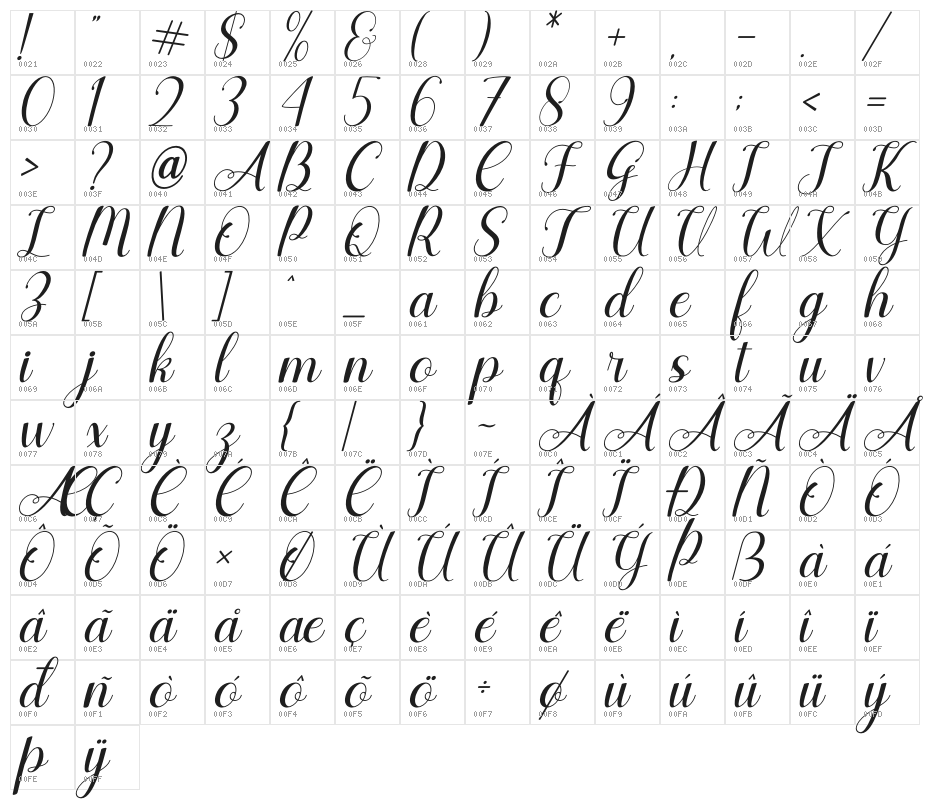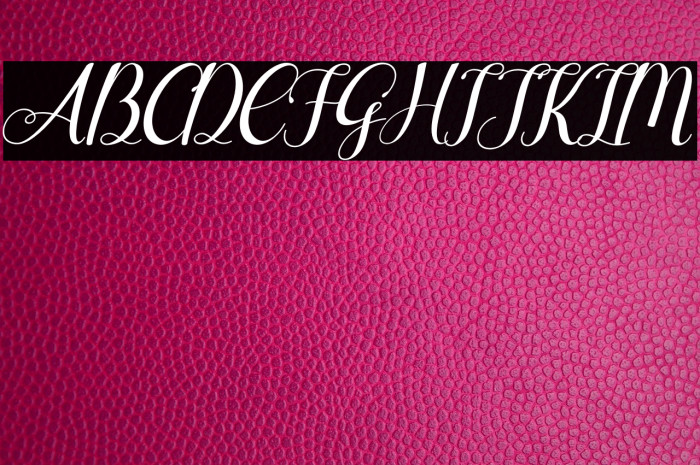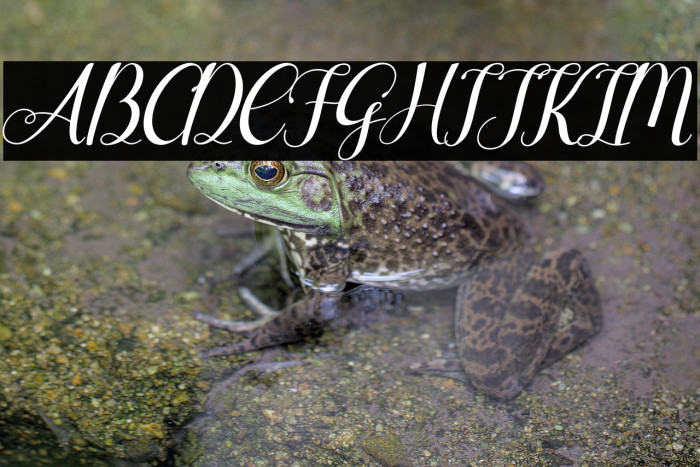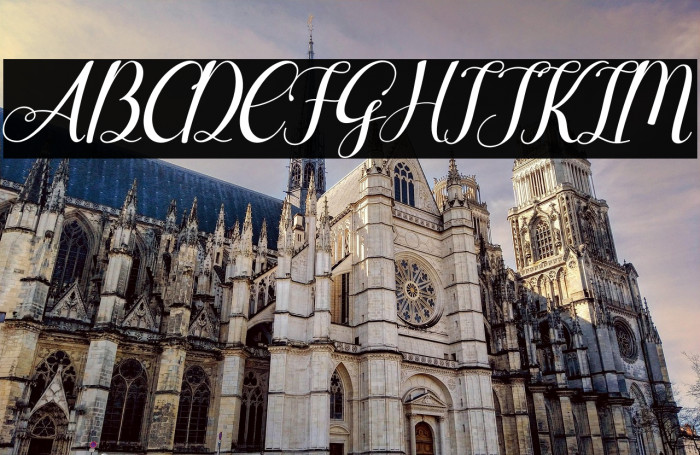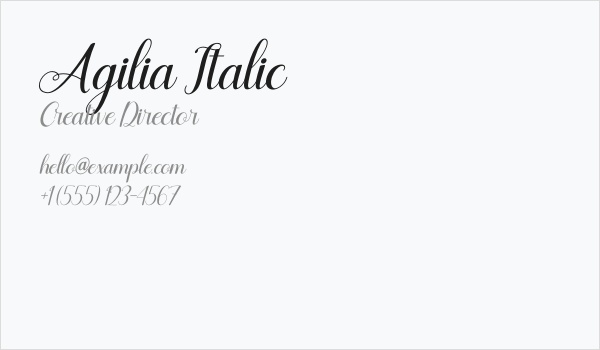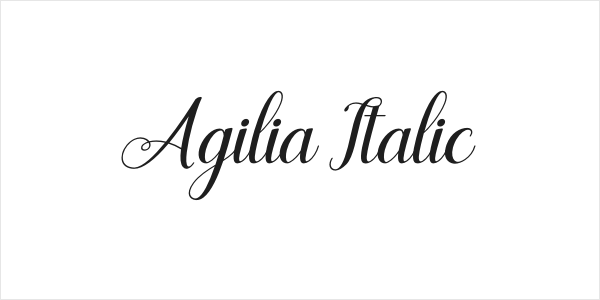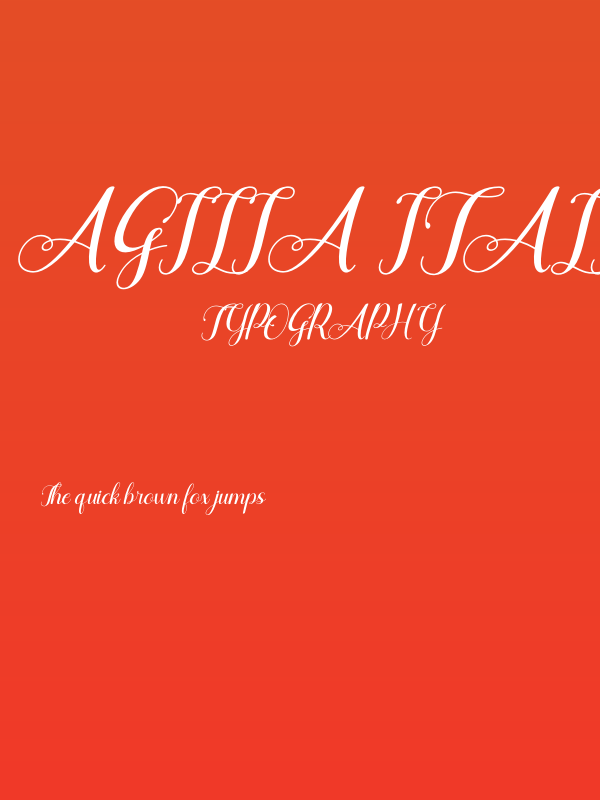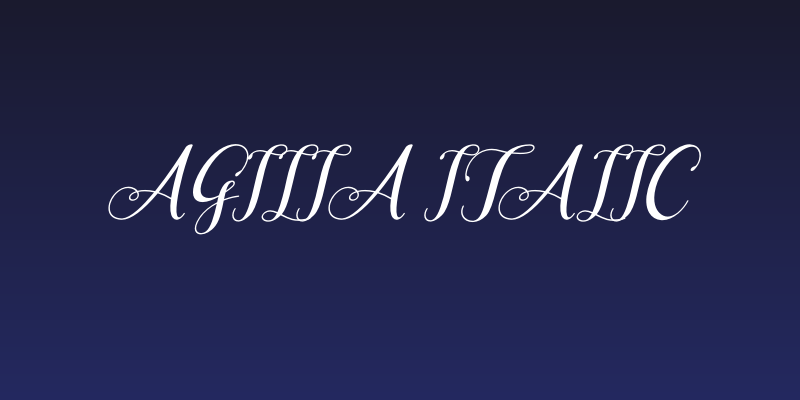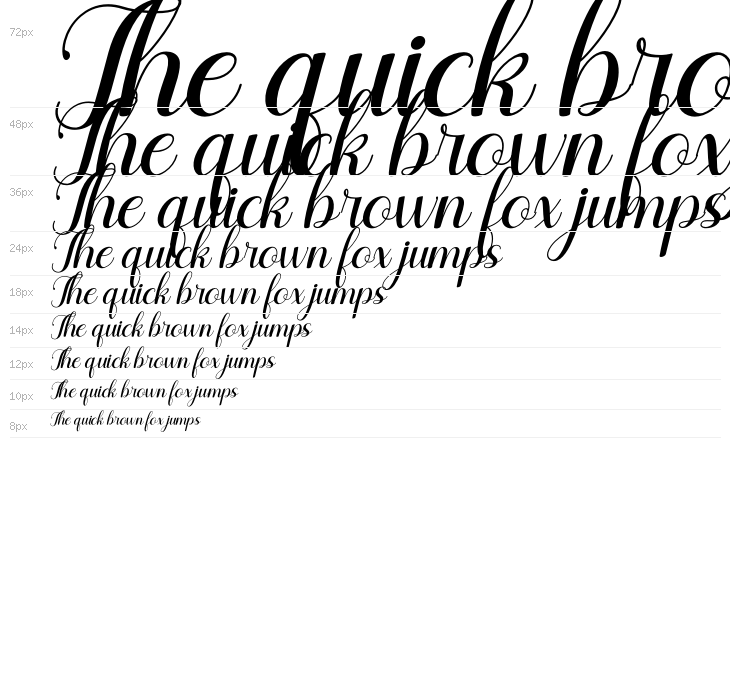
Agilia Italic Font
Agilia Italic Description
This elegant script font features flowing, interconnected letters with a graceful, cursive style. The uppercase letters are ornate, with sweeping curves and loops that give a sense of movement and sophistication. The lowercase letters maintain a consistent slant, enhancing the fluidity of the text. Numbers and special characters are designed with similar flair, ensuring a cohesive appearance across all elements. The font's delicate strokes and high contrast between thick and thin lines contribute to its refined and stylish look, making it suitable for formal and decorative applications.
| Overall Style | Elegant, Decorative |
| Proposed Projects | Ideal for wedding invitations, elegant branding, greeting cards, and high-end product packaging. |